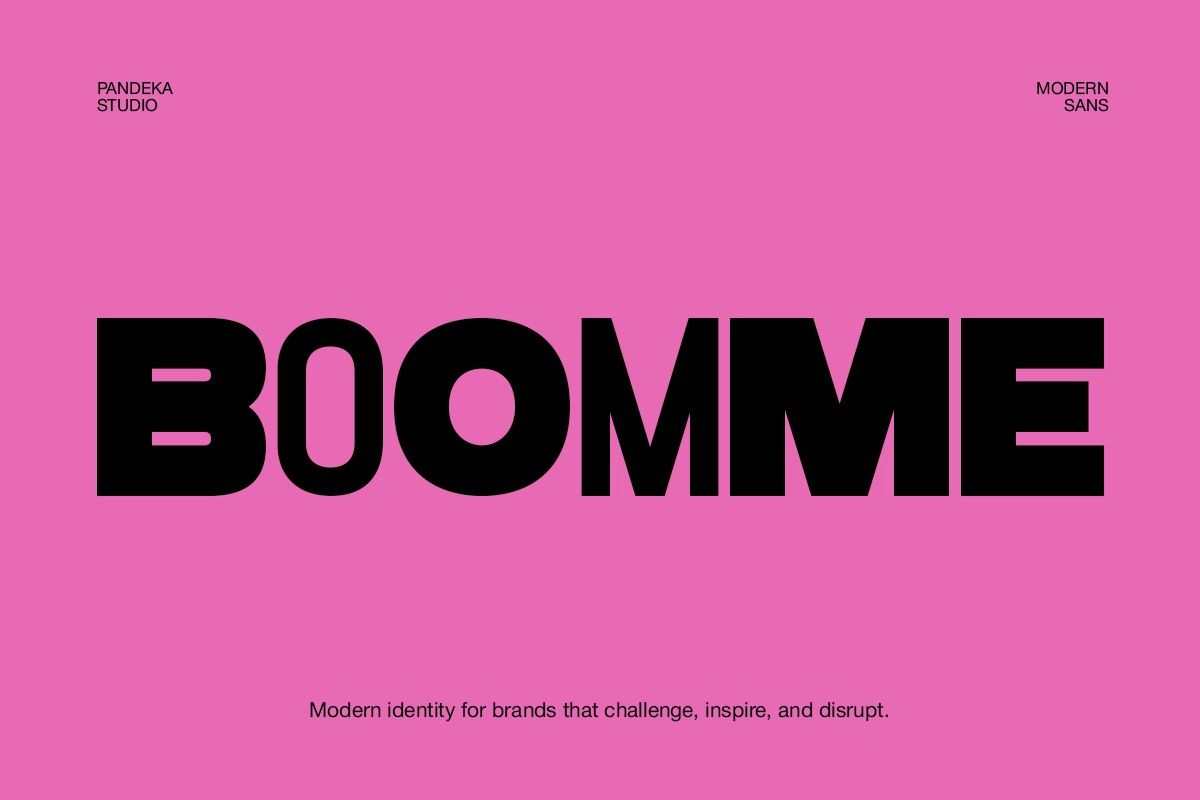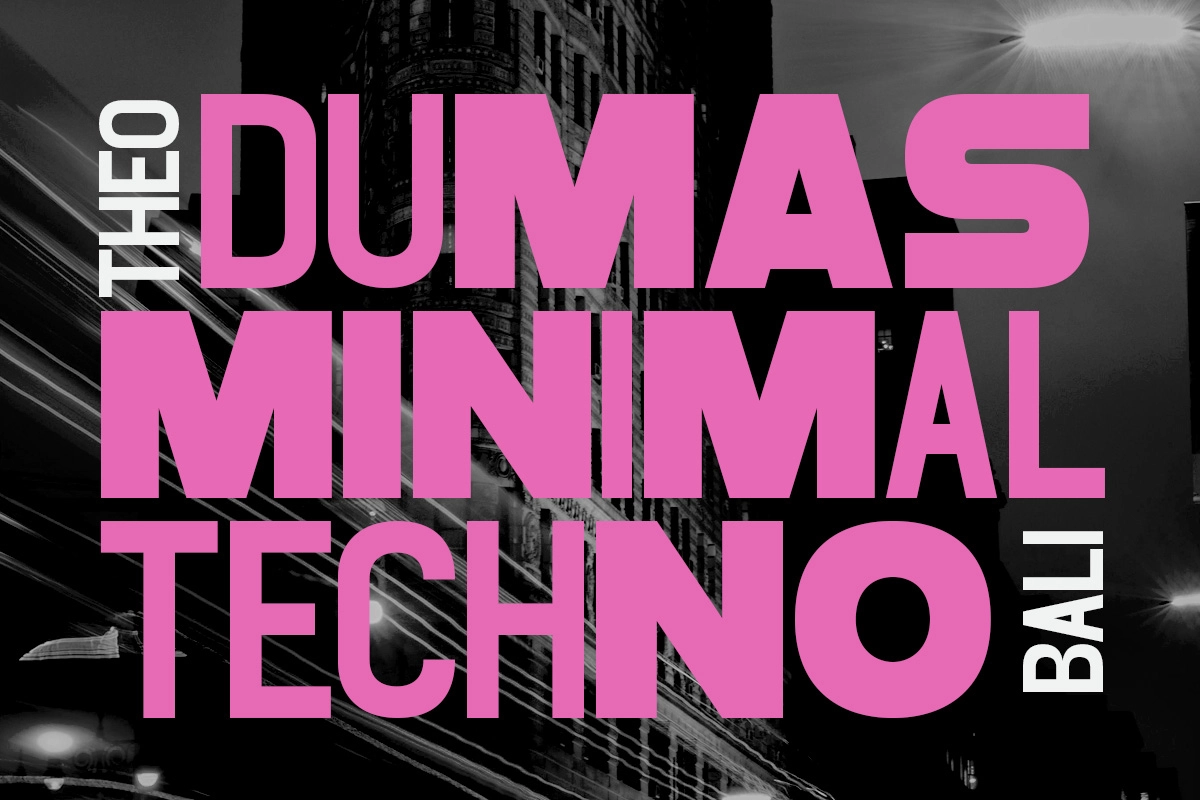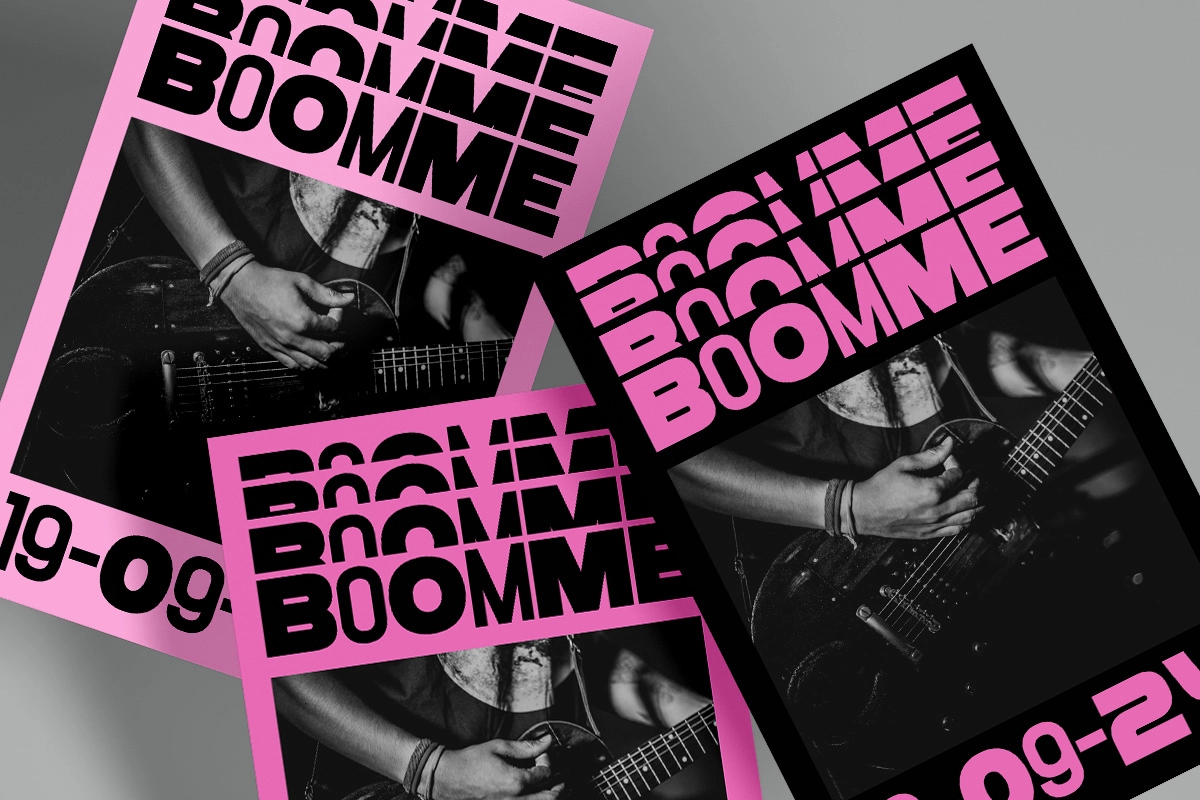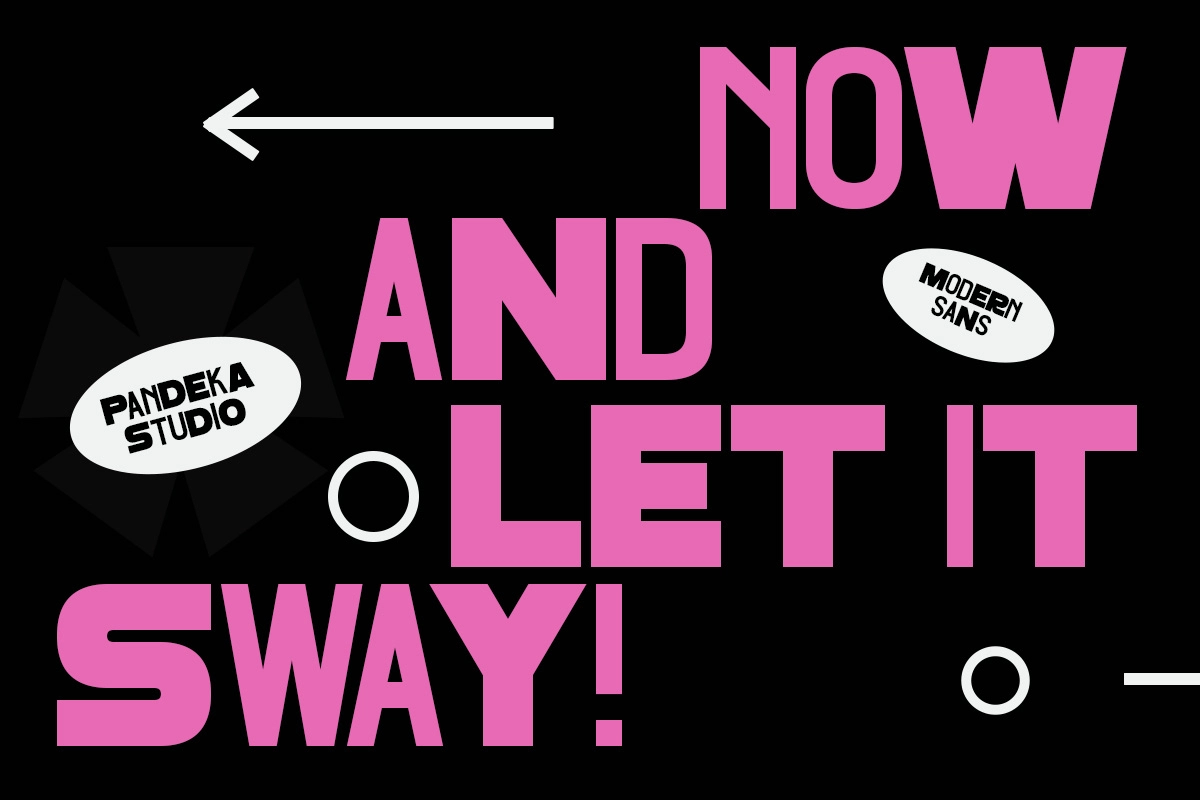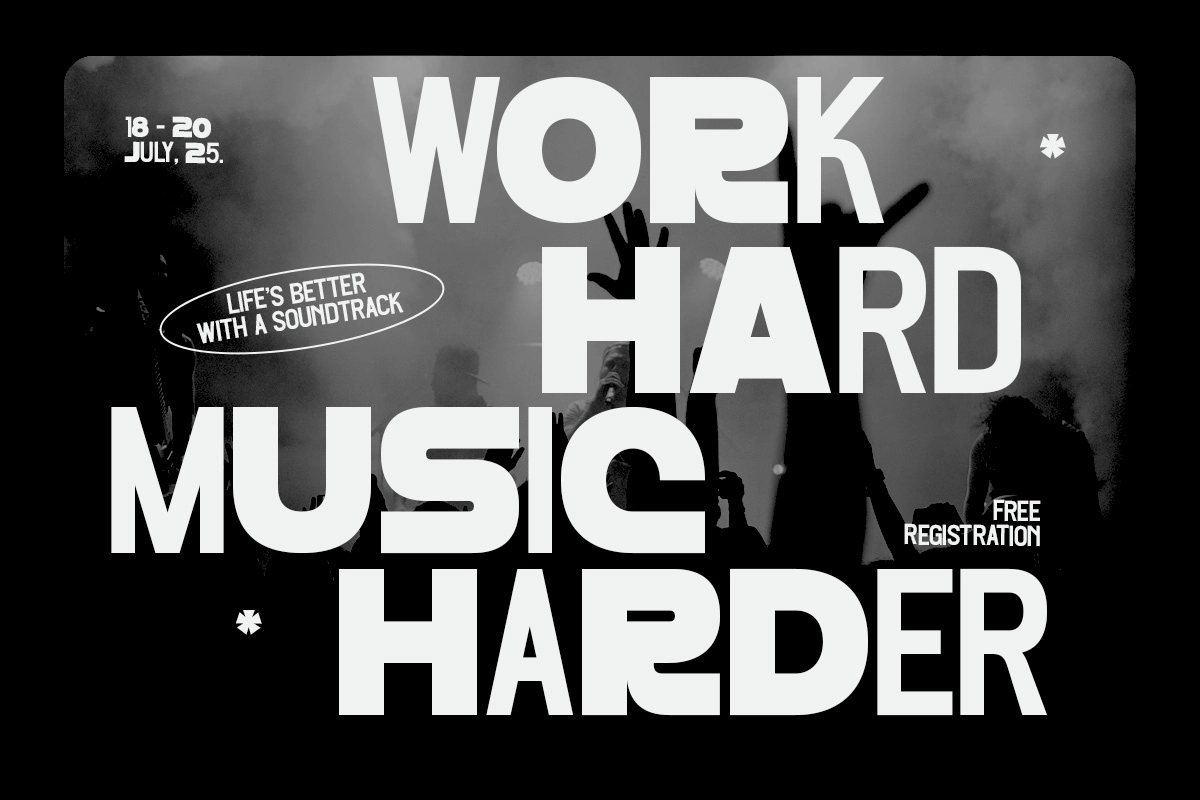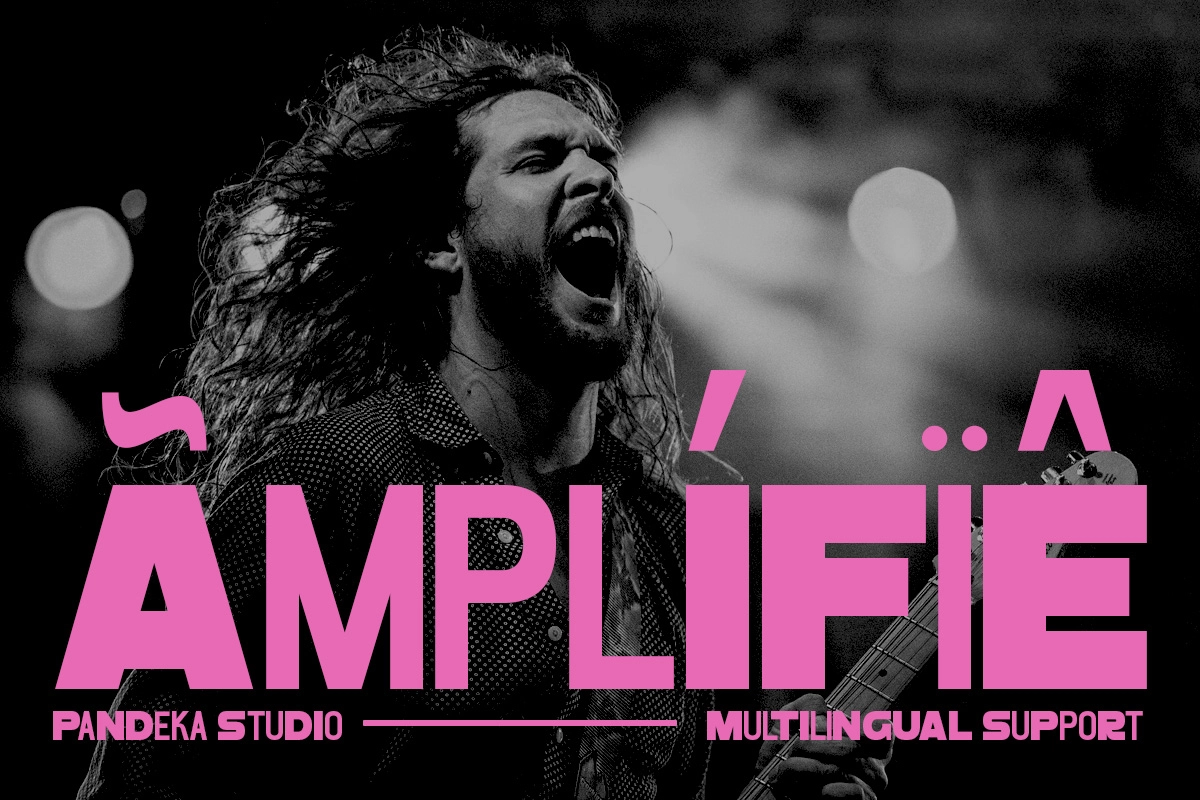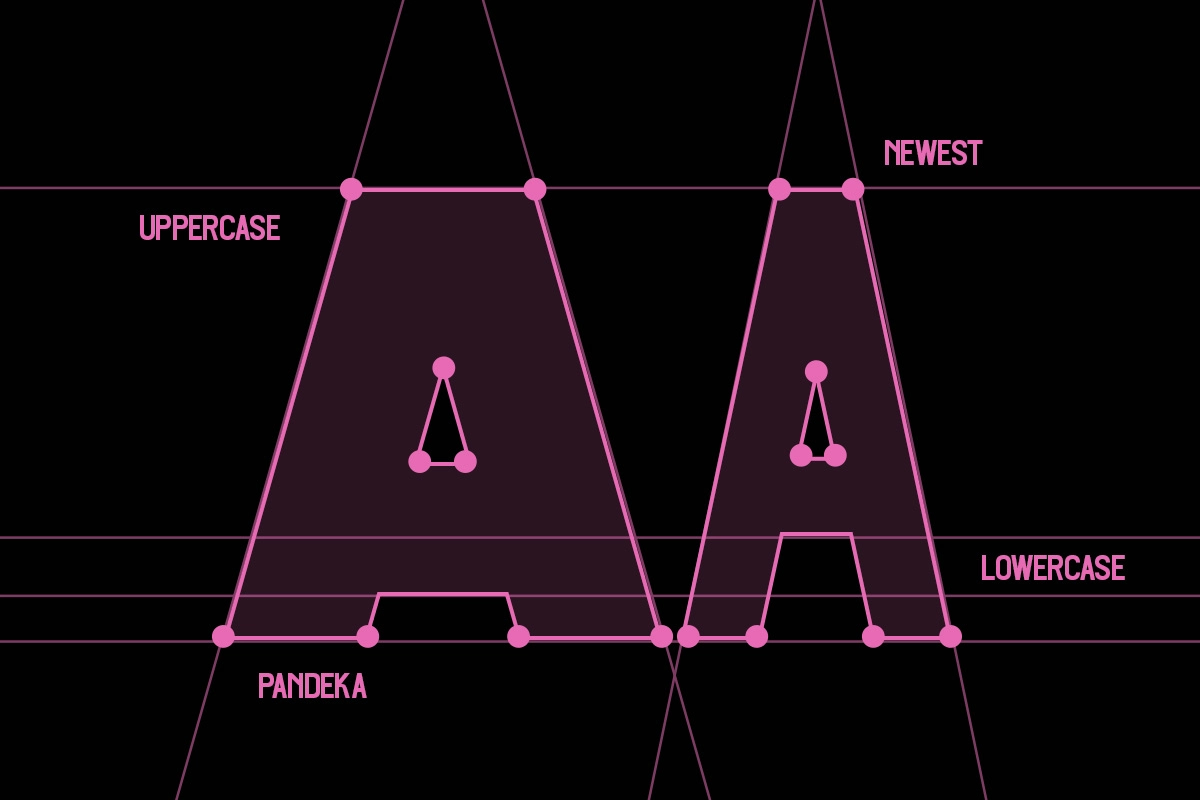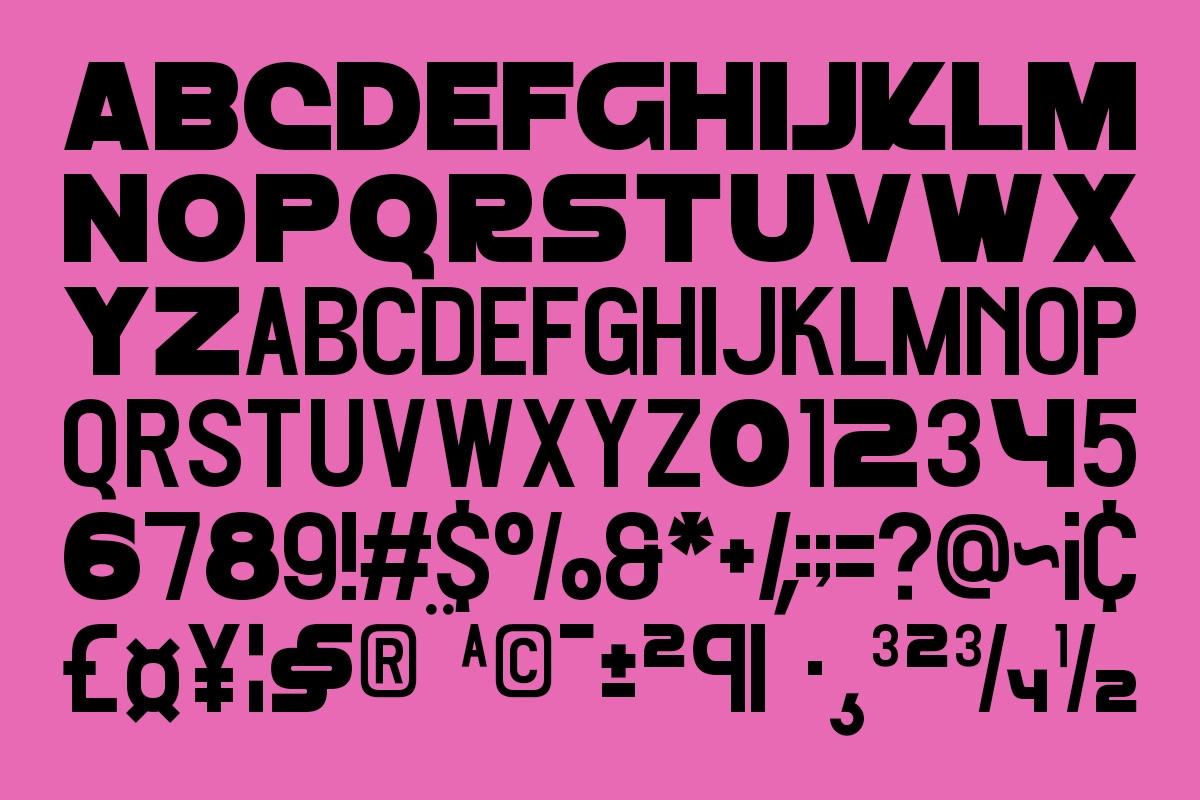
Boomme - Bold Geometric Display Font
Boomme is a bold geometric display font with thick, even strokes, flat-cut terminals, and rounded corners on the bowls that keep the shapes friendly instead of mechanical. The letters sit close together, so words stack into a dense, tight wall of type — closer to a club poster line-up than a delicate headline face. That density gives Boomme a loud, physical presence: every word reads like a shout, built out of blunt geometry, not fine detail.
Boomme works best at scale, in short bursts of type that can hold a whole layout on their own — event titles, single-word statements, and logo lockups where the weight is the message. Use it for gig posters, festival lineups, club night flyers, streetwear branding, music label identities, editorial headlines, social announcement graphics, tour merch, and badge or sticker designs.